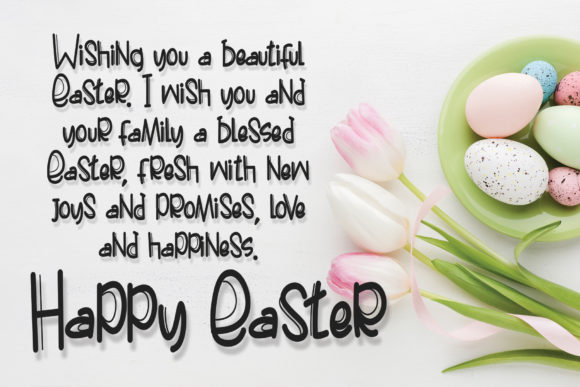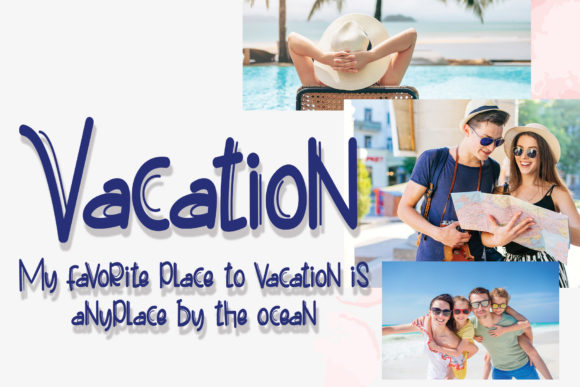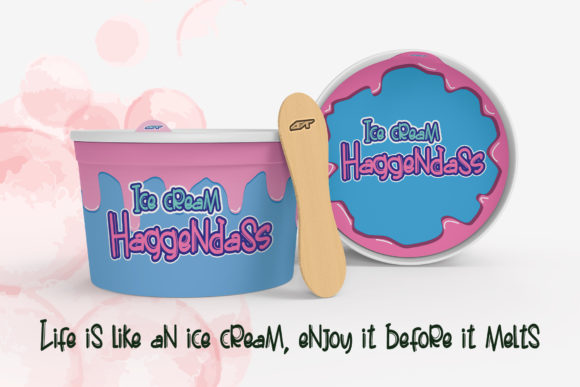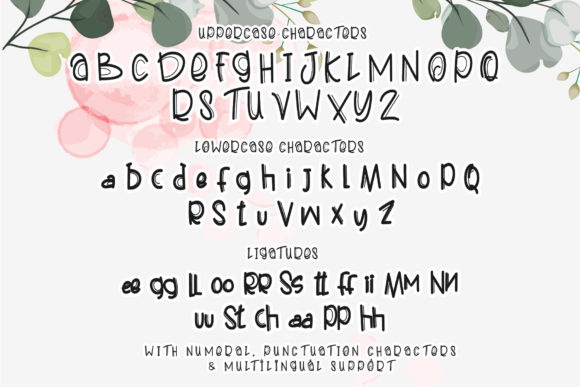
Fressia Font – Free Download
Introduction to Fressia Font
Fressia is inspired by classic typography and brings its own unique style to any design project.
This fantastic script font is best suited for headlines of all sizes, as well as for blocks of text that have both maximum and minimum variations Whether itโ€™s for web, print, moving images or anything else โ€“ Fressia will look spectacular.
Key Features of Fressia Font
Why Choose Fressia Font?
Fressia Font offers exceptional quality and versatility, making it a valuable addition to your design toolkit. Whether you’re creating for personal projects or commercial use, Fressia Font delivers professional results.